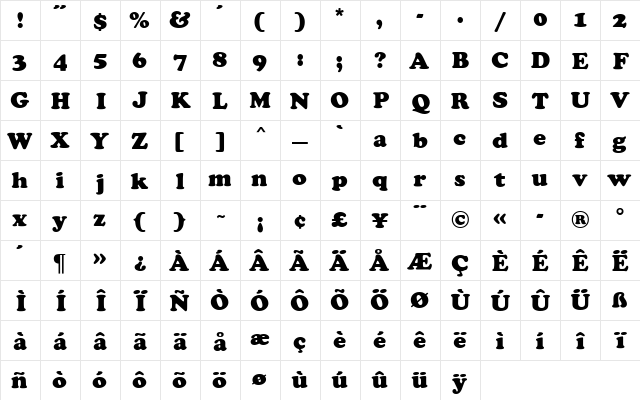
Cooper Black MN Black
Design Context for Cooper Black MN Typeface
Cooper Black MN is a composed and adaptable typeface that performs quietly and consistently across a wide range of design contexts.